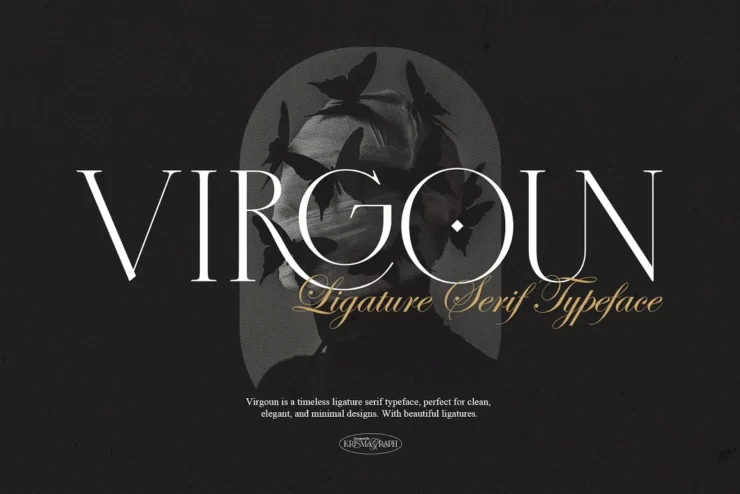
Virgoun is a timeless ligature serif typeface, perfect for clean, elegant, and minimal designs. It features both uppercase and lowercase letters with occasional variations in shapes, adding to its charm. With its beautiful ligatures, Virgoun empowers you to create works of art that resonate with your personal style.
Virgoun is a typeface that combines elegance and simplicity with a touch of creativity. It is a ligature serif font, which means that some of the letters are connected by special strokes that add visual interest and harmony to the text. Virgoun was designed by Ratna Krismawati, a graphic designer and font enthusiast from Indonesia. She was inspired by the music and personality of Virgoun, a popular Indonesian singer and songwriter. She wanted to create a font that reflects his style and passion, as well as his versatility and uniqueness.
Virgoun is a versatile font that can be used for various purposes, such as branding, photography, fashion, magazines, posters, advertisements, postcards, wedding invitations, quotes, blog headers, books, websites, and more. It has both uppercase and lowercase letters, with occasional variations in shapes that give it a distinctive character. It also has numbers, punctuation, symbols, ligatures, and accented characters to support multiple languages. Display Typface is a font that can stand out on its own, while also complementing other typefaces, especially calligraphy, script, signature, and handwriting fonts.
Ideal for a wide range of projects, including branding, photography, invitations, fashion, magazines, posters, advertisements, postcards, wedding invitations, quotes, blog headers, books, websites, and more, Virgoun stands out on its own, while also complementing calligraphy, script, signature, and handwriting typefaces.
Uppercase
Lowercase
Numbers & punctuation
Symbols
Ligatures
Accented characters